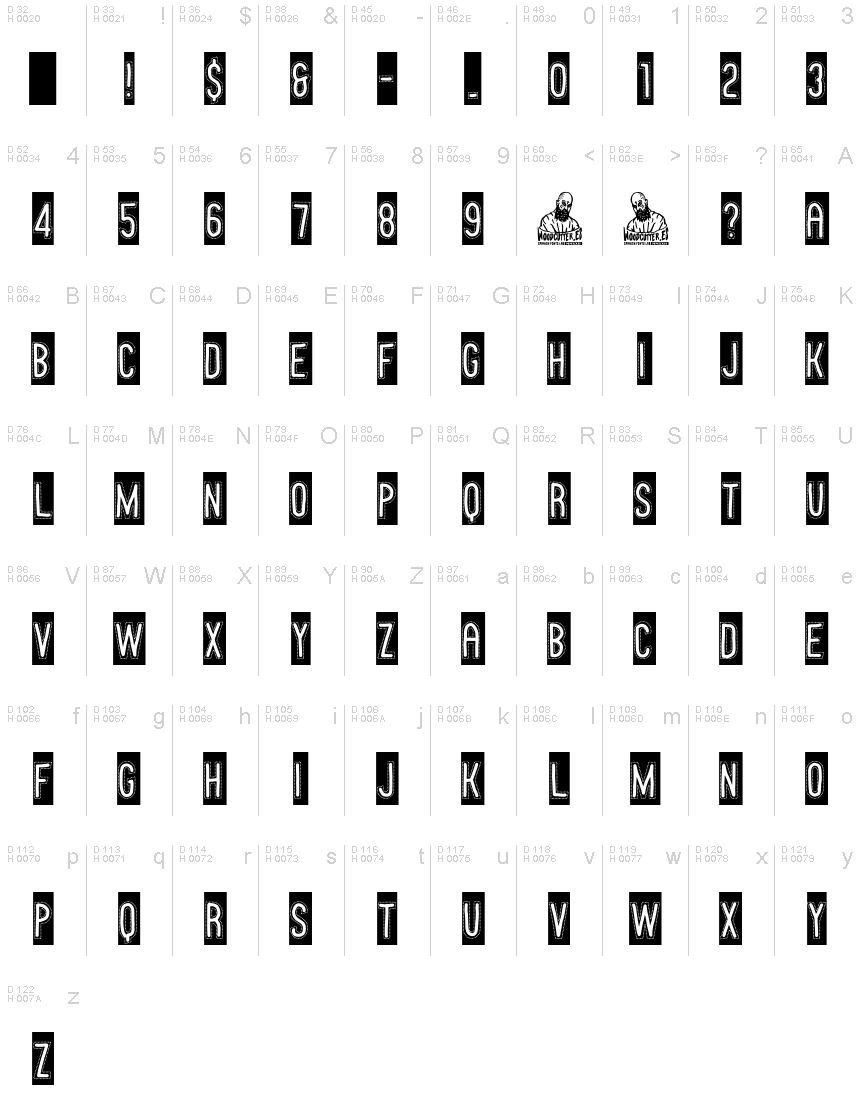
Neo-Nacimiento
Neo-Nacimiento font, crafted by Woodcutter, is a striking display typeface that captivates with its decorative flair. With its condensed width, it delivers impactful visual weight while maintaining an elegant form. The intricate detailing within each character makes it perfect for projects seeking a unique aesthetic touch.
Ideal for branding, posters, and creative designs, Neo-Nacimiento stands out in both digital and print media. Its bold presence ensures readability even at smaller sizes, offering versatility across various applications. Designers seeking to infuse originality into their work can utilize this free font to achieve extraordinary results.